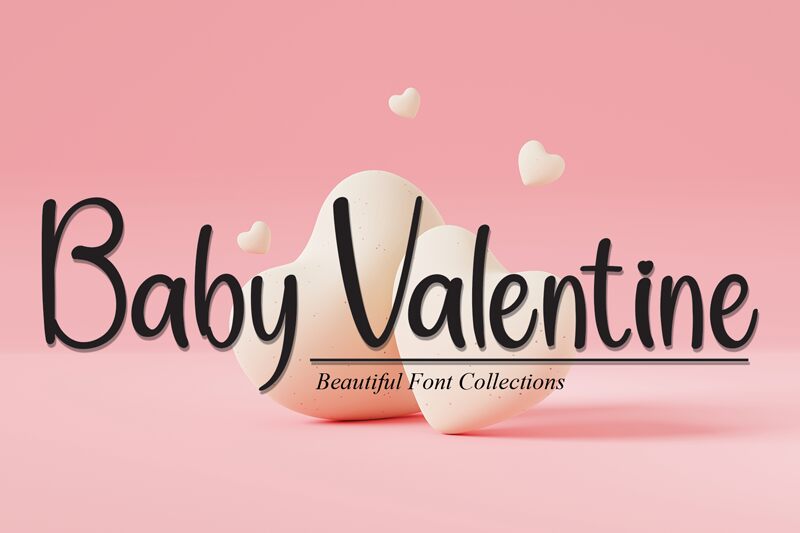
Baby Valentine
Baby Valentine is a charming, hand-crafted font that exudes warmth and personalization. Designed by Andi Moz, this font boasts a playful, organic flow, with each letter seemingly written with a delicate touch.
The smooth, rounded strokes and gentle variations in thickness create a sense of authentic, handwritten elegance. This font's versatility shines through, making it an excellent choice for a wide range of design applications, from wedding invitations and greeting cards to branding and packaging.
Its whimsical yet refined aesthetic can add a touch of personal flair to any project, conveying a sense of heartfelt sentiment and affection.